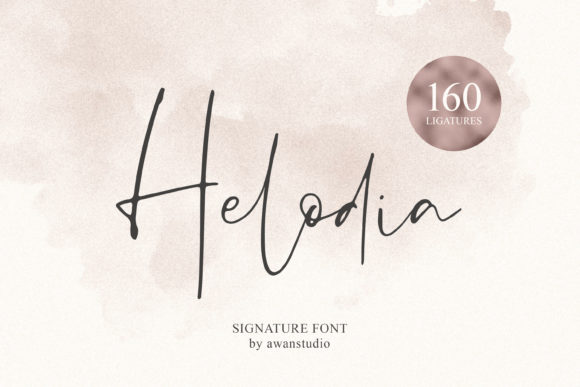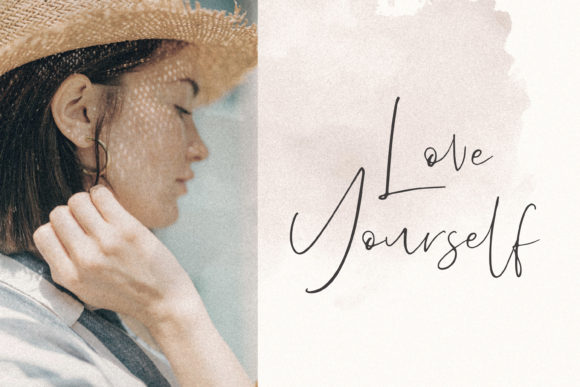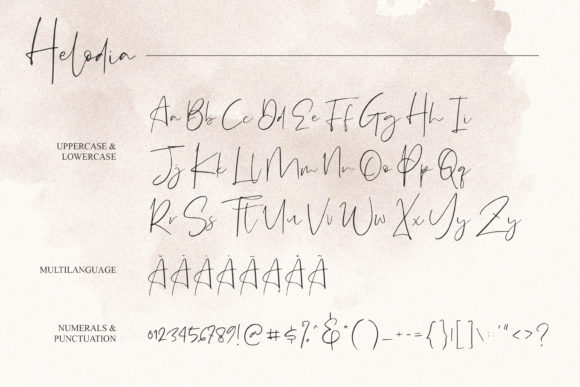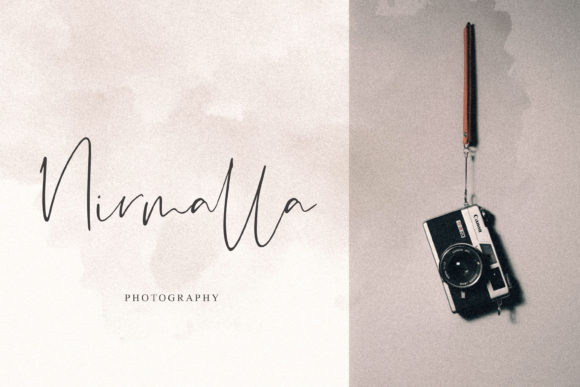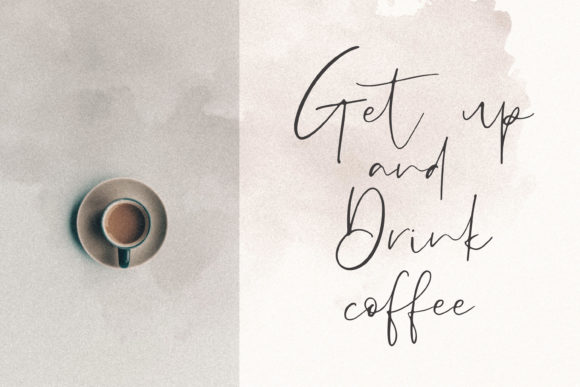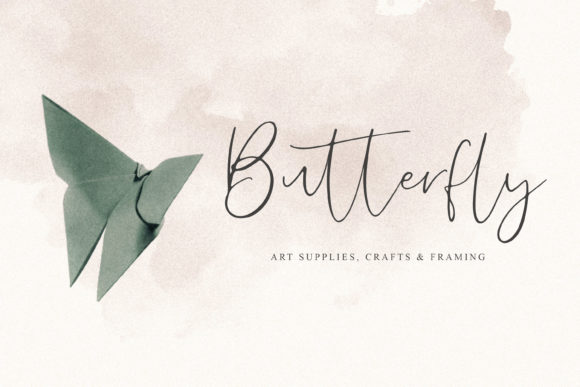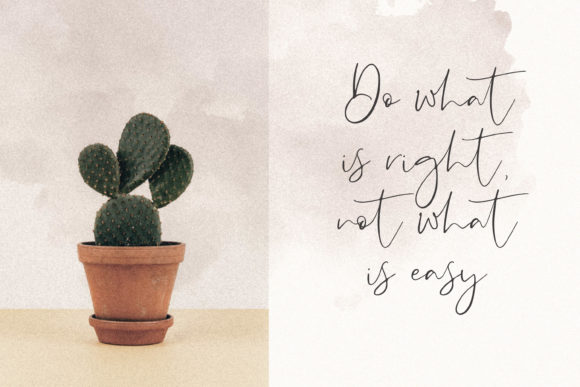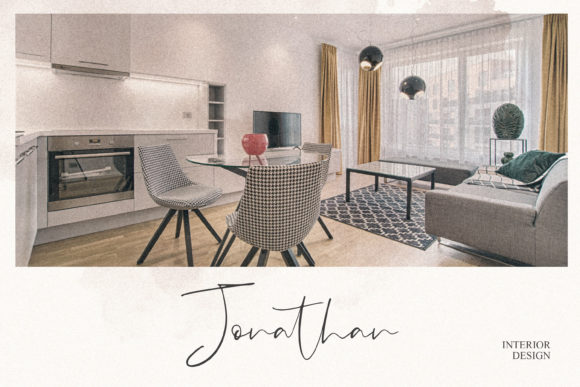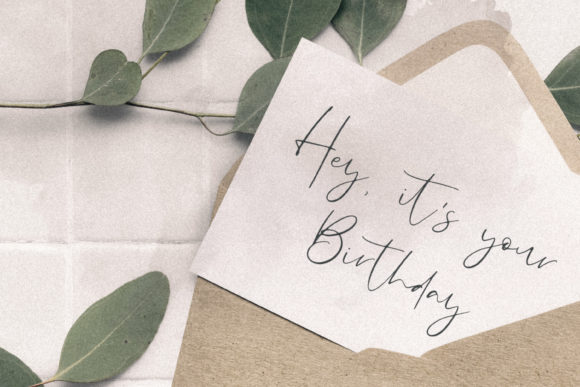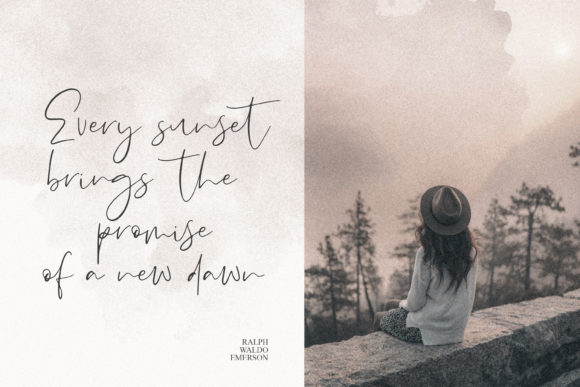
Helodia Font
About Helodia Font
Helodia is a beautiful and smart handwritten font with a contemporary twist and beautiful ligatures. It will turn any design project into a stand out!